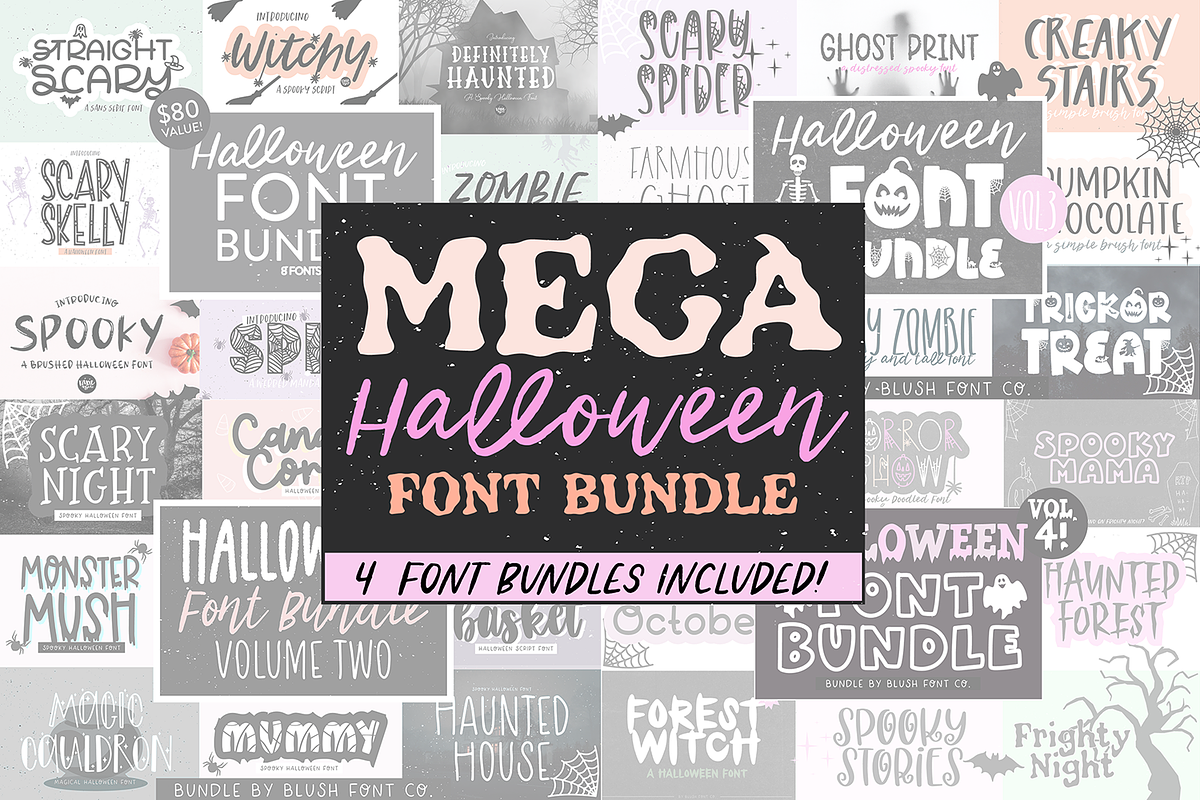
MEGA HALLOWEEN FONT BUNDLE V1 Free Download is the ultimate spooky collection every designer needs for the Halloween season! Packed with creepy, cute, and quirky fonts, this bundle is perfect for party invitations, haunted house flyers, spooky merch, YouTube thumbnails, and all your October design projects.
From chilling serif styles to playful handwritten fonts, this bundle offers endless creative possibilities. Whether you're going for eerie elegance or ghostly fun, MEGA HALLOWEEN FONT BUNDLE V1 gives your designs the seasonal edge they need to stand out.
Designers love the variety and themed aesthetic that’s perfect for both kids’ and adult-targeted Halloween content. Don’t miss your chance to treat your toolbox—download MEGA HALLOWEEN FONT BUNDLE V1 Free Download and start brewing up some spooky design magic today!